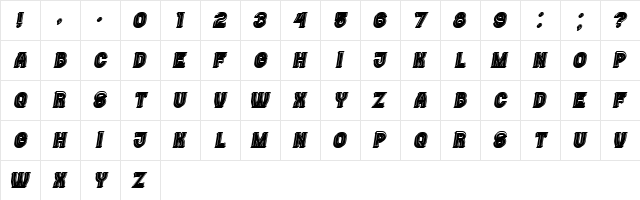
Casino 3D Filled Italic
Design Context for Casino 3D Filled Typeface
Casino 3D Filled is a composed and adaptable typeface that performs quietly and consistently across a wide range of design contexts. The slanted form adds forward momentum and visual energy.
Pro Tip: Use Casino 3D Filled for emphasis, pull quotes, and subheadings where its slanted energy can add rhythm to the layout.